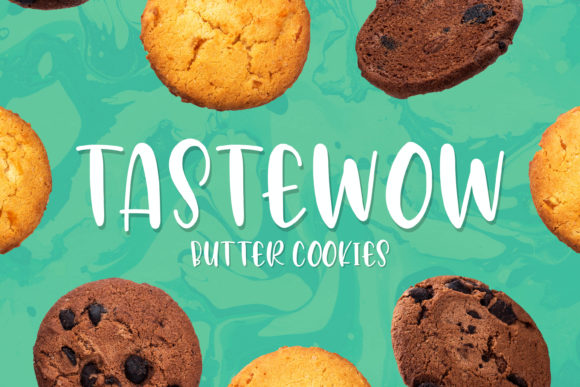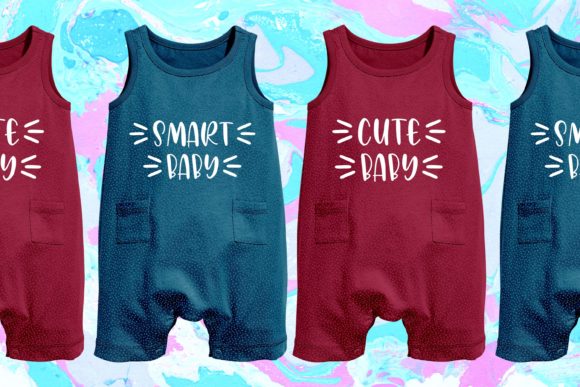
Avocado Creamy Font
db-ku.com - Script & Handwritten -- Avocado Creamy is sweet and playful, but also elegant. Fall in love with its dynamic charm, and make this fancy script part of your craft library now.